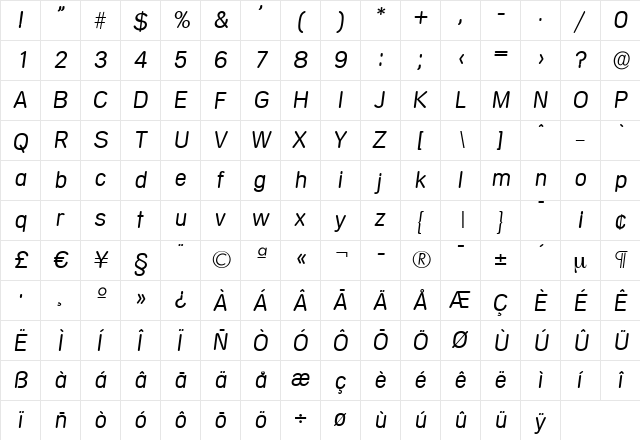
AndreasBecker-Light Italic Font Preview
Design Context for AndreasBecker-Light Typeface
AndreasBecker-Light offers clean, dependable letterforms without strong stylistic allegiance, making it a practical choice for designers who need flexibility. Its italic angle brings a sense of urgency and motion to the letterforms. The delicate stroke weight brings airiness and refinement to layouts.